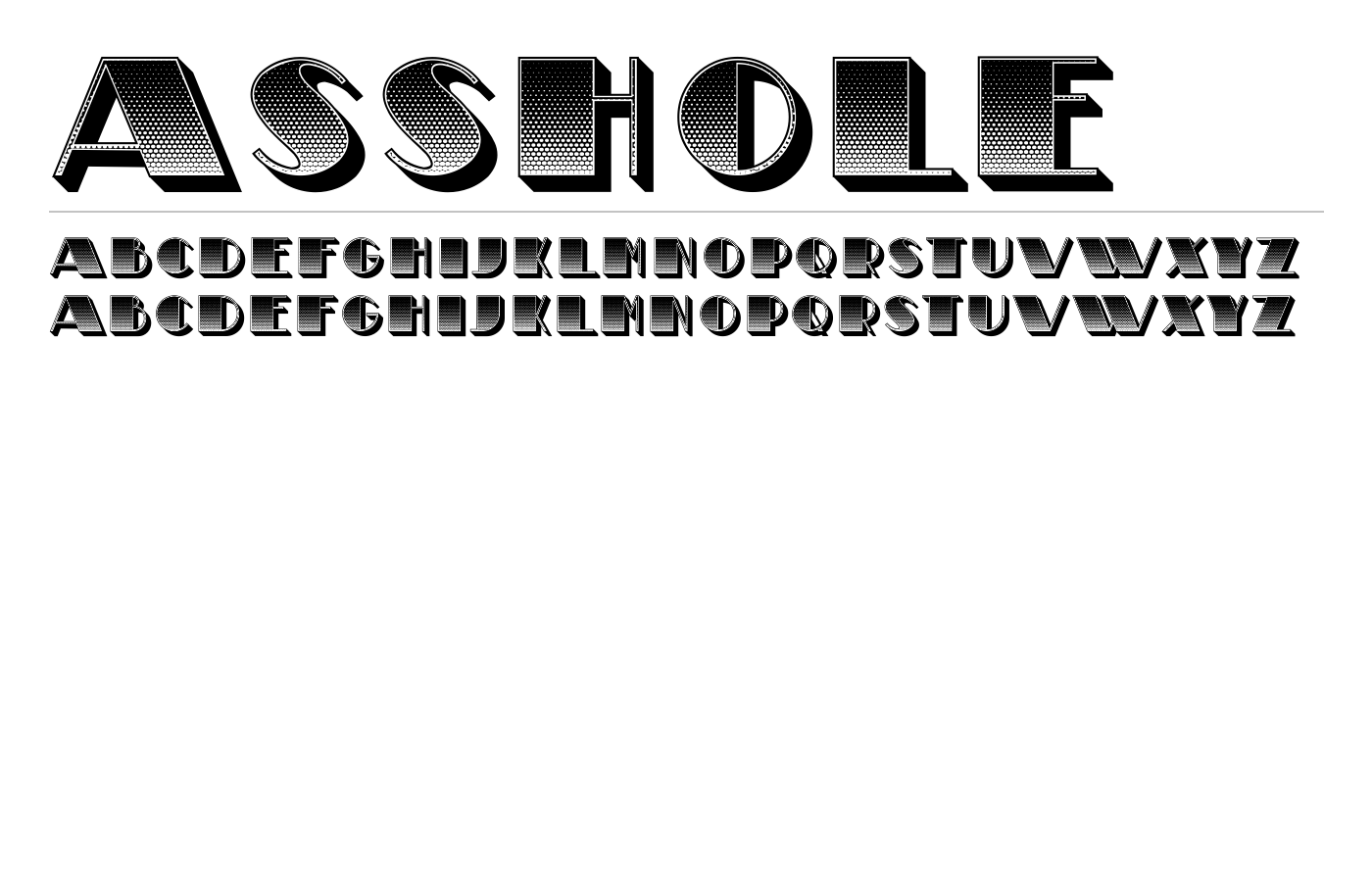
Asshole Font is a bold, all-caps display typeface with a vintage, retro vibe characterized by strong geometric shapes and a striking halftone shading effect that adds depth and texture. Its heavy weight and wide proportions make it eye-catching and perfect for impactful headlines, posters, or branding that aims to convey a bold, playful, and slightly irreverent personality. This font works best in larger sizes where its decorative details can shine, lending a distinctive and memorable style to creative and edgy design projects.
Asshole Font
About Asshole Font
| Font family | Asshole Font |